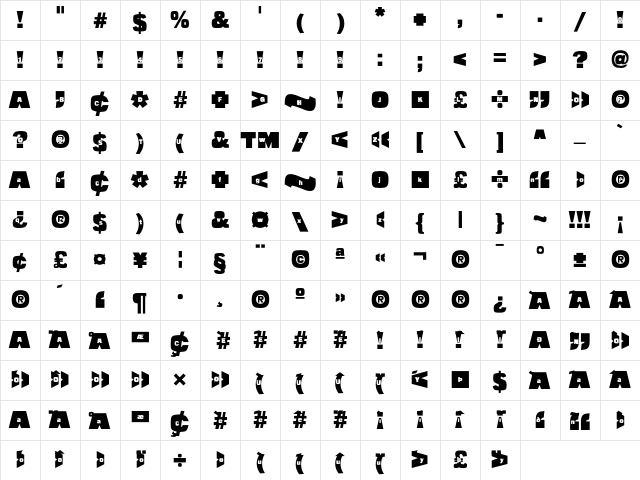
Populist Control Free Font
Populist Control
Style: Control
Populist Family
Populist Control
Design Context for Populist
Populist is a composed and adaptable typeface that performs quietly and consistently across a wide range of design contexts.